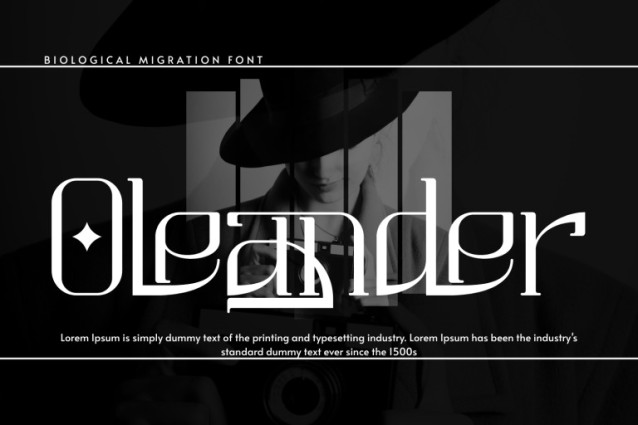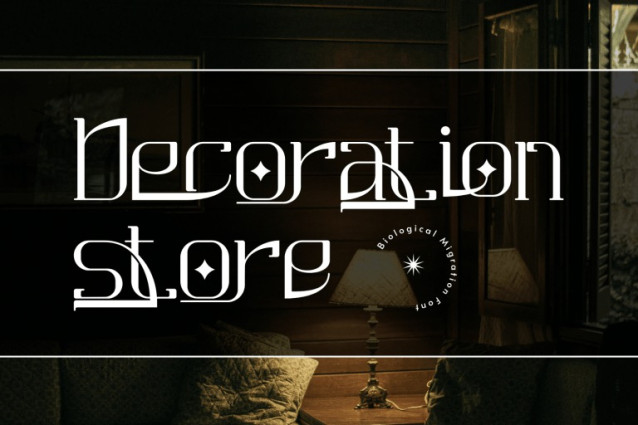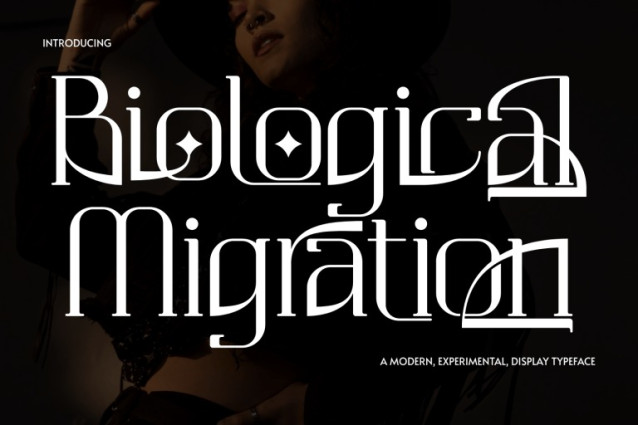
Biological Migration Font
Biological Migration – Elegant Serif Font is an elegant calligraphic serif display font designed with graceful curves, refined contrast, and flowing decorative details. Its sophisticated letterforms combine classic serif structure with romantic swashes, creating a luxurious and expressive typographic rhythm. Perfect for fashion branding, wedding invitations, beauty packaging, perfume labels, editorial headlines, boutique logos, and premium visual identities, Biological Migration brings elegance, charm, and artistic personality to every design.
🔤Features:
Uppercase & Lowercase Letters
Around 100 Special Ligatures & Alternates
🔤About 100 ligatures combined with Stylistic Alternates Font: